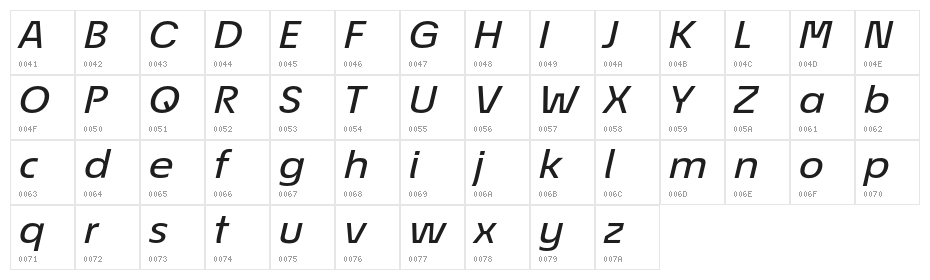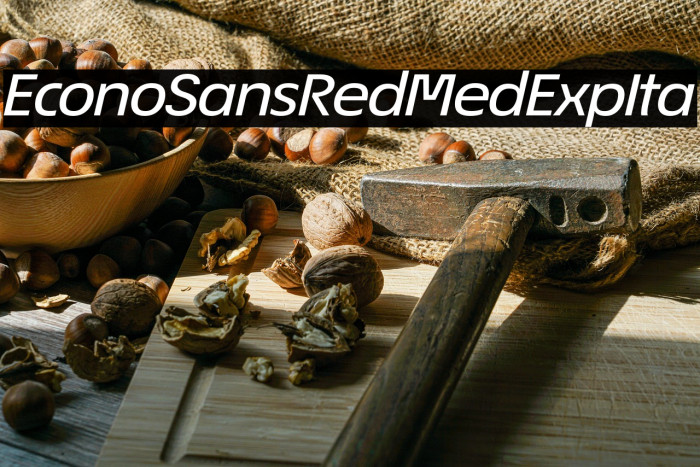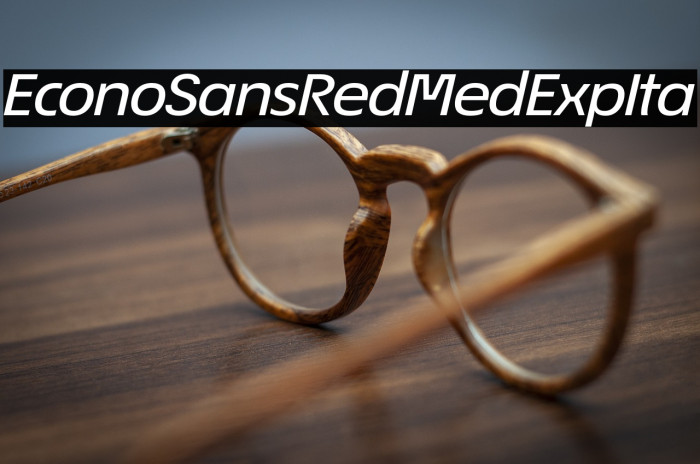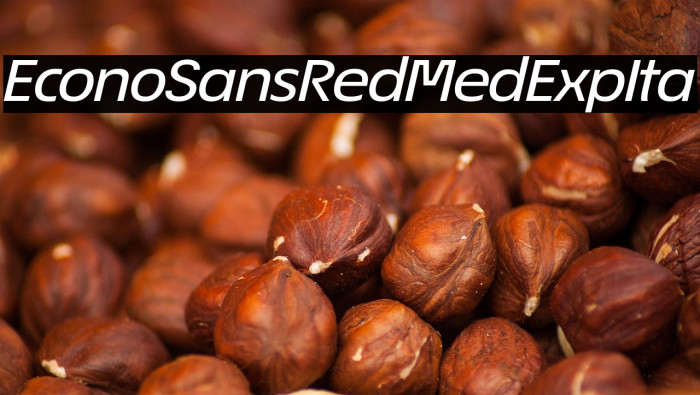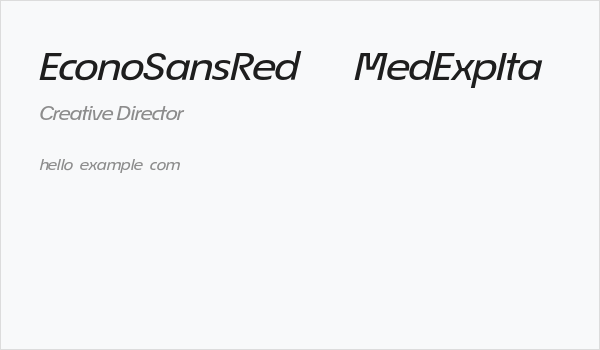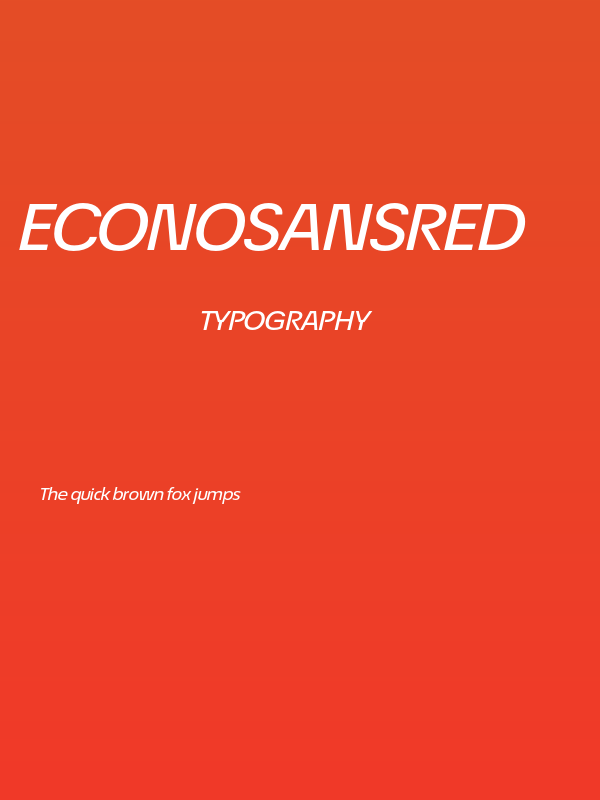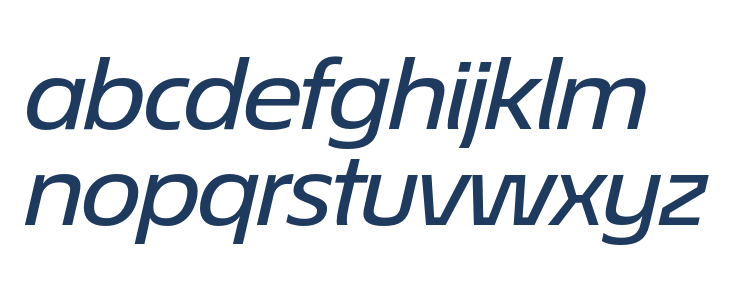
EconoSansRed-64MedExpIta Font
EconoSansRed-64MedExpIta Description
This font features a sleek, modern design with a slightly italicized style, giving it a dynamic and forward-moving appearance. The characters are well-proportioned with a consistent stroke width, contributing to its clean and professional look. The uppercase and lowercase letters maintain a harmonious balance, while the rounded edges add a touch of softness to the overall aesthetic. The font's expanded width allows for excellent readability, making it suitable for various applications. Its contemporary style is ideal for projects that require a fresh and innovative feel.